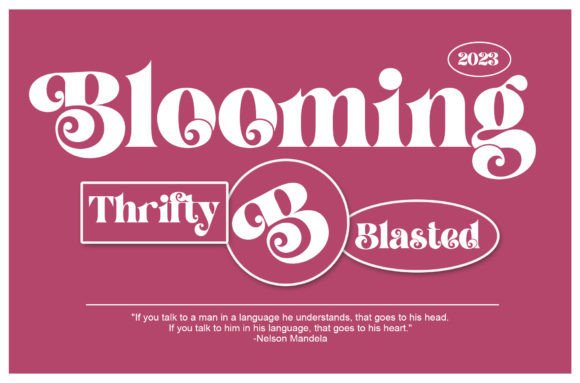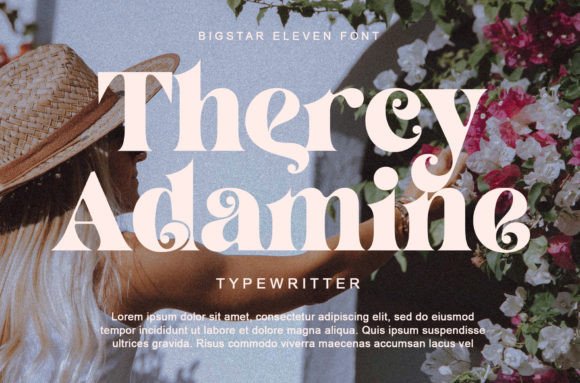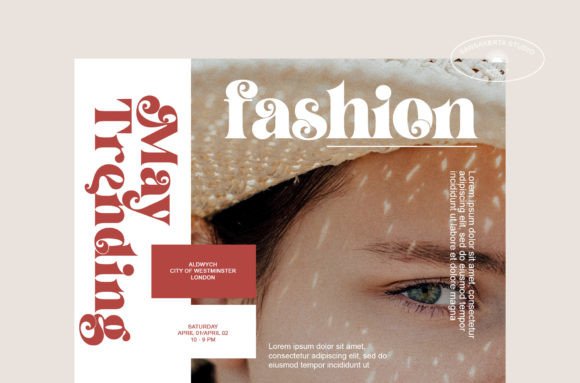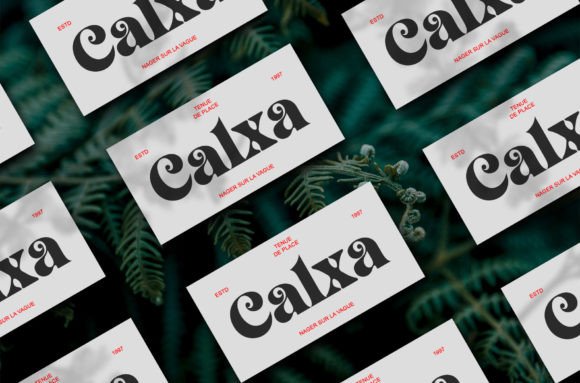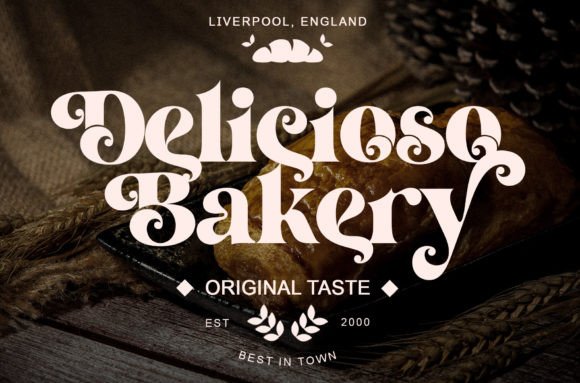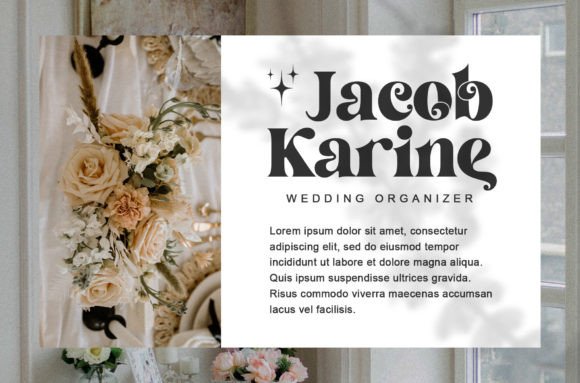
Introducing Bigstar Eleven: The Modern Style Font for Creative Designs
In the world of design, fonts play a crucial role in conveying the message and aesthetic of a brand or creative project. With the numerous font options available, finding the perfect one that combines style, elegance, and versatility can be a daunting task. However, if you’re looking for a modern style font that can elevate your designs, look no further than Bigstar Eleven. This special font is crafted with precision and attention to detail, making it an excellent choice for various design applications.
What Makes Bigstar Eleven Stand Out?
Bigstar Eleven is a modern style font that boasts beautiful curves, giving it a unique and sophisticated look. Its design is a perfect blend of elegance and playfulness, making it suitable for a wide range of design projects. Whether you’re working on branding design, logos, greeting cards, title packaging, or other creative endeavors, Bigstar Eleven is the perfect companion to help you achieve your design goals.
Key Features of Bigstar Eleven
- Accurate and Precise Design: Bigstar Eleven is crafted with accurate accuracy, ensuring that every curve and line is perfectly designed to provide a beautiful visual experience.
- Beautiful Curves: The font features stunning curves that add a touch of elegance and sophistication to any design.
- Multilingual Support: Bigstar Eleven supports multiple languages, making it a versatile font for designers working on international projects.
- Uppercase and Lowercase Letters: The font includes both uppercase and lowercase letters, providing flexibility and convenience for designers.
- Numerals and Punctuation: Bigstar Eleven also includes numerals and punctuation marks, making it a comprehensive font solution for various design needs.
Bigstar Eleven’s versatility makes it an excellent choice for a wide range of design applications. Here are some of the ways you can use this amazing font:
- Branding Design: Create a lasting impression with Bigstar Eleven’s elegant and modern design, perfect for logos, business cards, and brand guidelines.
- Logos: Design stunning logos that stand out from the crowd with Bigstar Eleven’s unique curves and lines.
- Greeting Cards: Add a touch of elegance to your greeting cards, invitations, and other stationery designs with Bigstar Eleven.
- Title Packaging: Make your title packaging designs pop with Bigstar Eleven’s modern and stylish font.
- Other Designs: From social media graphics to website headers, Bigstar Eleven can be used for various design projects that require a modern and elegant touch.
Why Choose Bigstar Eleven?
With so many fonts available, why should you choose Bigstar Eleven? Here are some compelling reasons:
- Unique Design: Bigstar Eleven’s modern style and beautiful curves make it a unique font that can help you stand out from the crowd.
- Versatility: The font’s multilingual support, uppercase and lowercase letters, numerals, and punctuation marks make it a versatile solution for various design needs.
In conclusion, Bigstar Eleven is a special modern style font that can elevate your designs to the next level. Its unique curves, multilingual support, and versatility make it a perfect choice for branding design, logos, greeting cards, title packaging, and other creative projects. With Bigstar Eleven, you can add a touch of elegance and sophistication to your designs, making them more amazing and engaging. So why wait? Start using Bigstar Eleven today and experience the difference it can make in your design work.